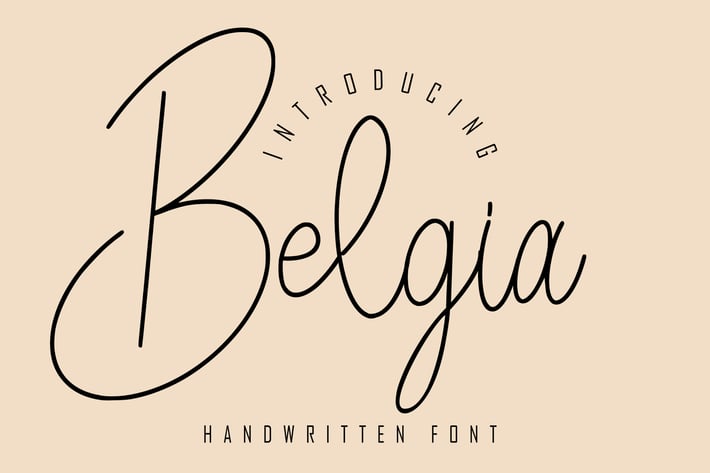
Belgia Handwrittten Script Font
Belgia is a handwritten signature script with a natural flow and beautiful style. Belgia is perfect for invitation design projects, prewedding, branding, logos, wedding designs, social media posts, advertisements, product packaging, product design, labels, photography, watermarks, invitations, stationery, and any project that requires handwriting tastes .